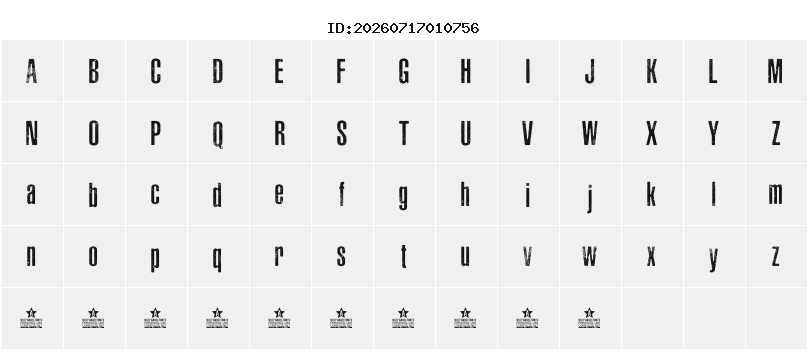
• Font Name: ASPHALTIC SCRATCH ROUNDED PERSO
• Full Font Name: ASPHALTIC SCRATCH ROUNDED PERSONAL USE
• Designer: BILLY ARGEL
About ASPHALTIC SCRATCH ROUNDED PERSO.ttf
ASPHALTIC SCRATCH ROUNDED PERSO.ttf is a modern, elegant sans-serif font designed for ultimate readability and visual harmony. Perfect for branding, headlines, web design, and print materials.